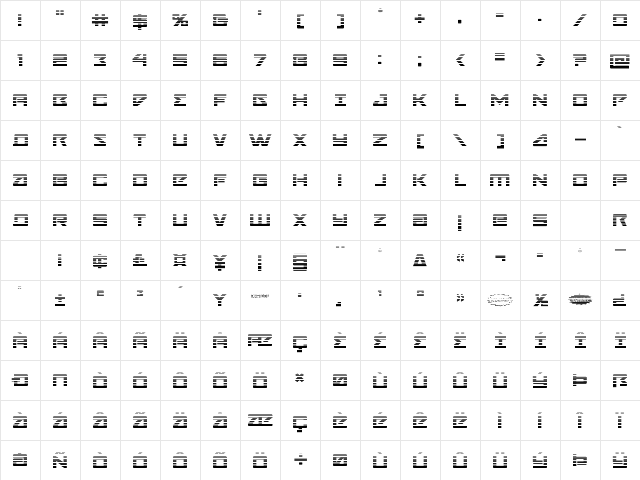
Navy Cadet Gradient Regular
Design Context for Navy Cadet Gradient
Navy Cadet Gradient is a composed and adaptable typeface that performs quietly and consistently across a wide range of design contexts.